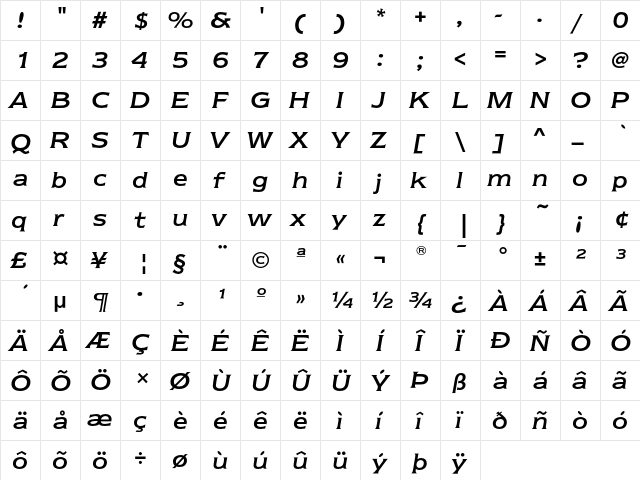
NewtextEF RegularItalic
Design Context for NewtextEF Typeface
NewtextEF offers clean, dependable letterforms without strong stylistic allegiance, making it a practical choice for designers who need flexibility. Its italic angle brings a sense of urgency and motion to the letterforms.
Pro Tip: Try NewtextEF for annotation and caption copy alongside an upright companion — the contrast in angle creates a dynamic but ordered typographic system.